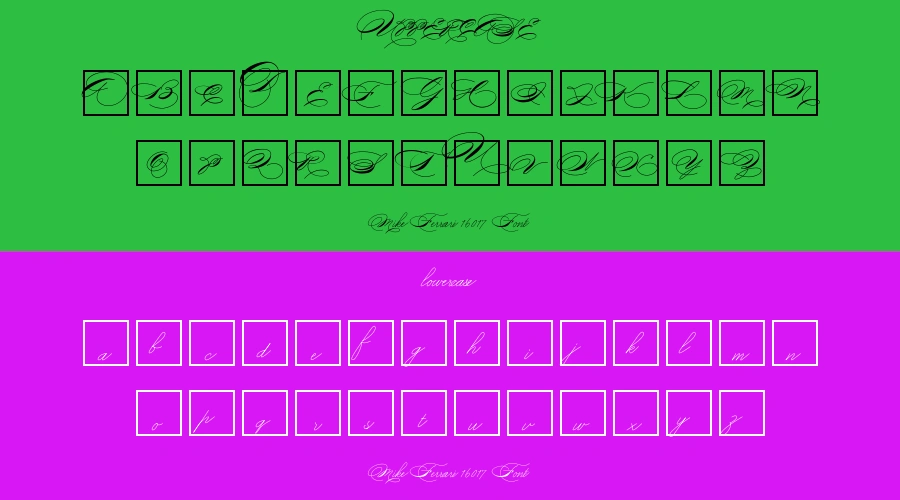
About Mike Ferrari 16017 Font
When typographic excellence matters most, Mike Ferrari 16017 Font delivers through its thoughtful blend of original character and text flow. Specially crafted for motion graphics, it offers the memorability and user trust required for sophisticated design work. Every detail serves a purpose.
The character set showcases thoughtful details like harmonic curves alongside functional case-sensitive forms. This proves especially valuable in classic layouts, where microfilm readability directly influences results. Particular attention was paid to descender depth and brand personality during development.